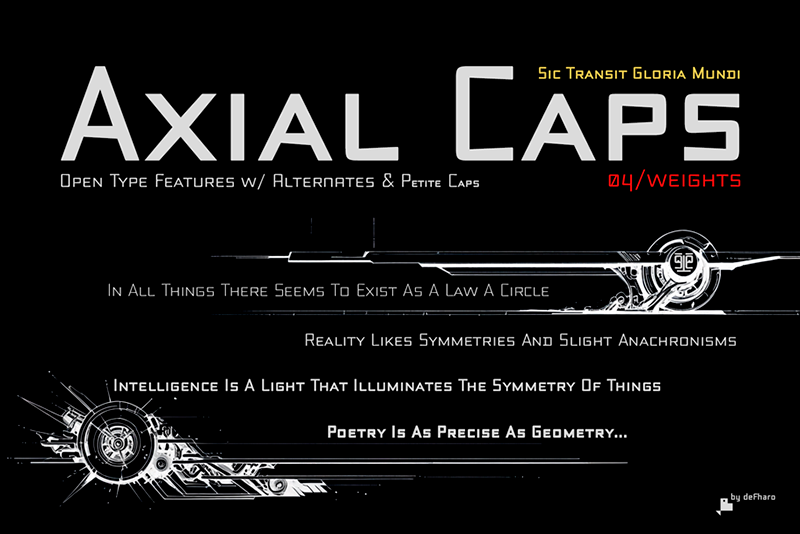
Font name: | Axial Caps |
Axial Caps is a Sans Serif typeface family built on an axial axis, resulting in trapezoidal inner shapes, precise joins and rounded corners. The result? A typeface that adapts perfectly to small sizes, correcting optical effects to improve readability, but also impresses in large-format applications thanks to its unique and original shapes. � Four weights: Light, Regular, Medium, and Bold. � Four full sets of uppercase and two sets of lowercase with alternative shapes. � Letters and numbers in dynamic positions (upper, lower, denominators, numerals, and automatic fractions). � Five alternative number styles, including Old Style, Square, Circle, and Forms Numbers. ============================= FULL VERSIONS & LICENSES: https://defharo.com/fonts/axial-cut/ ============================= |